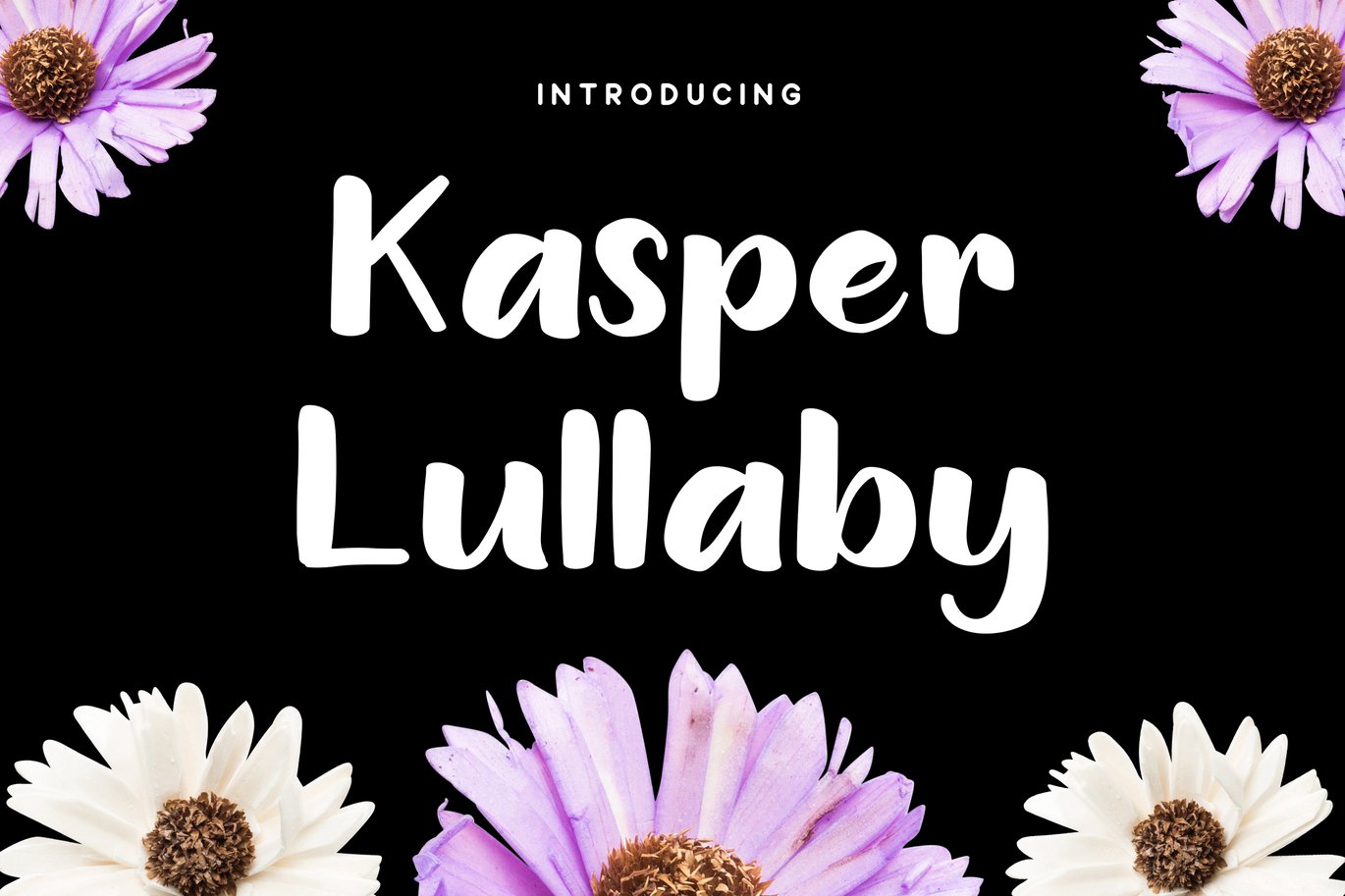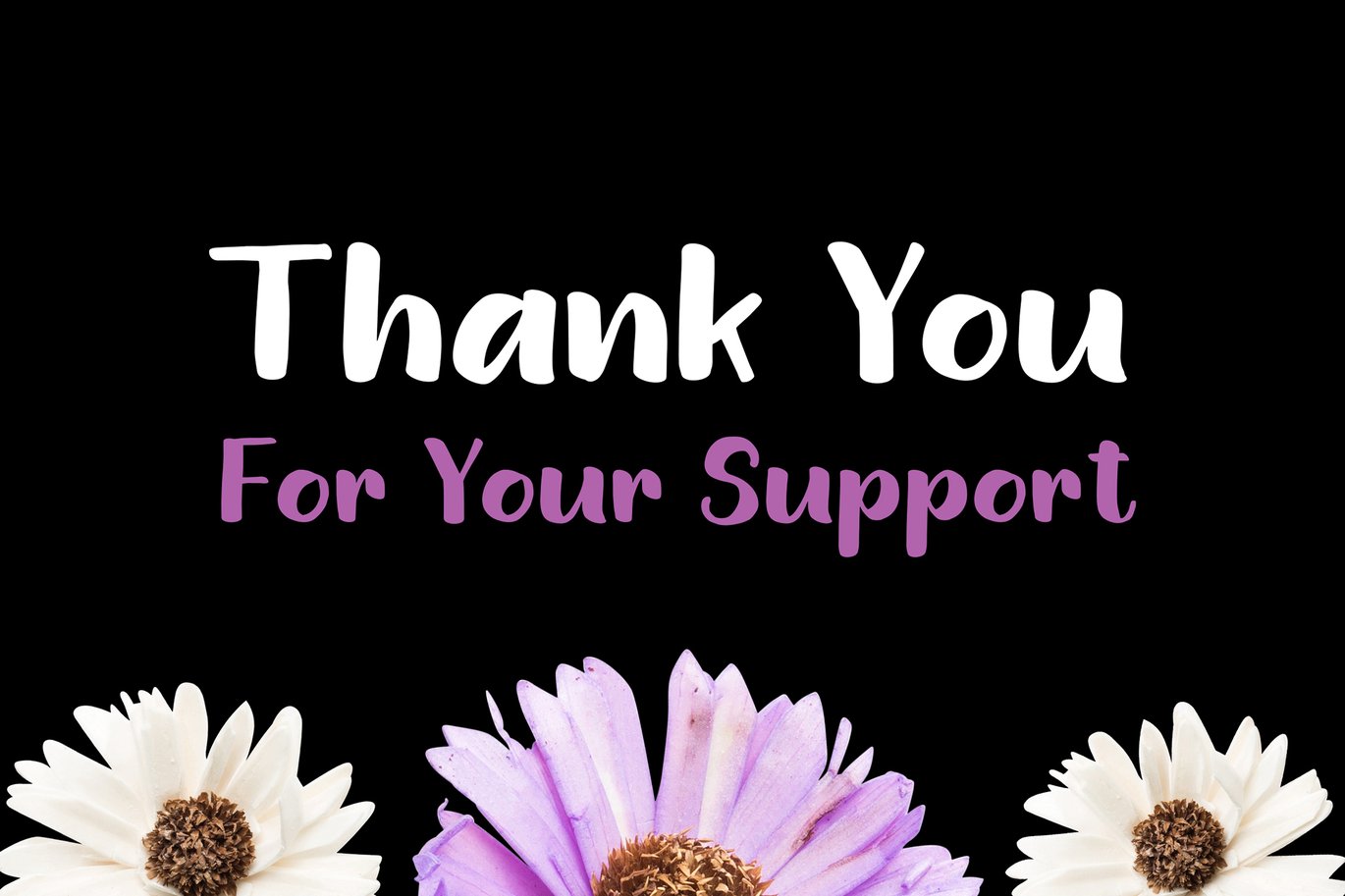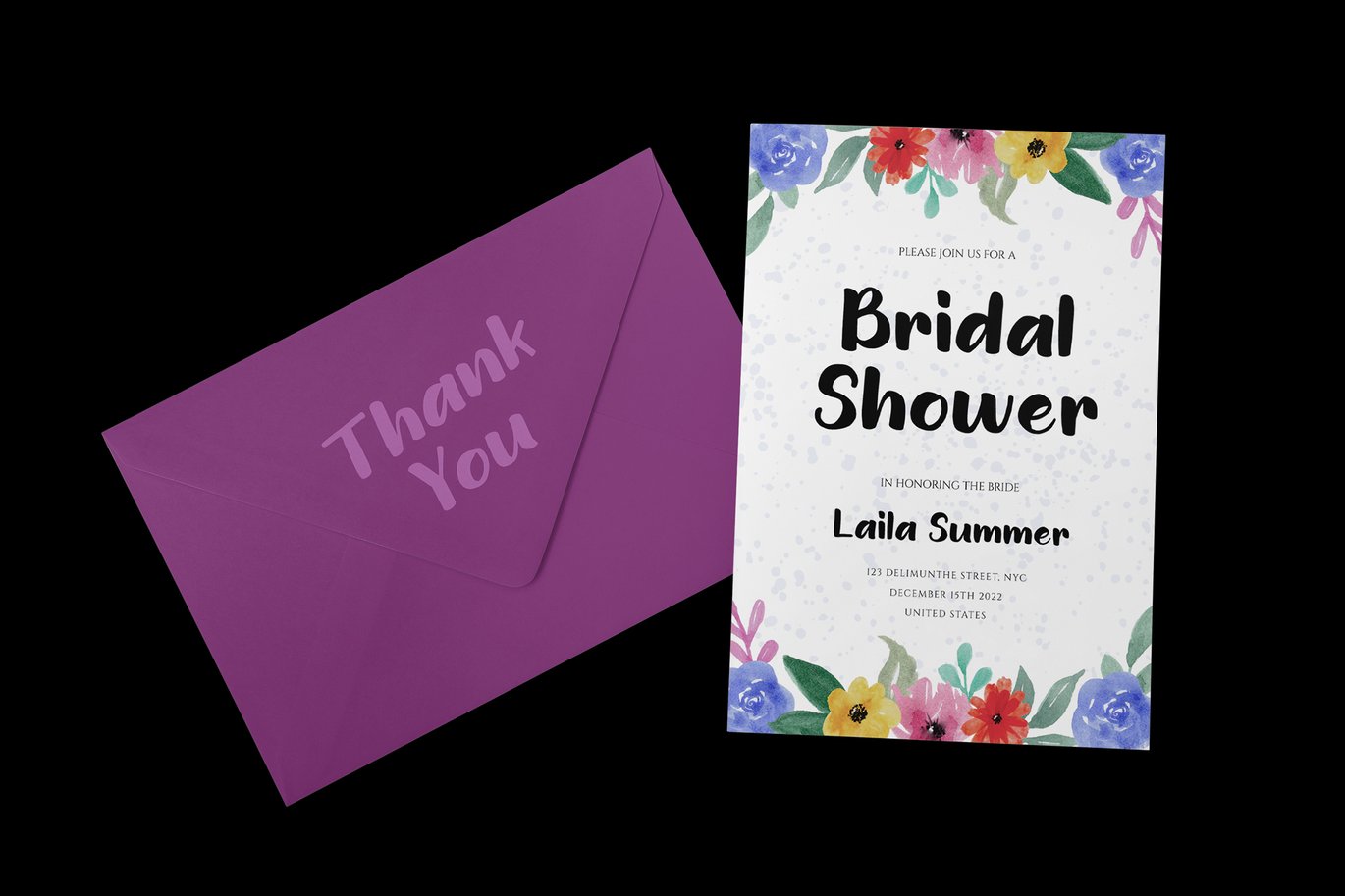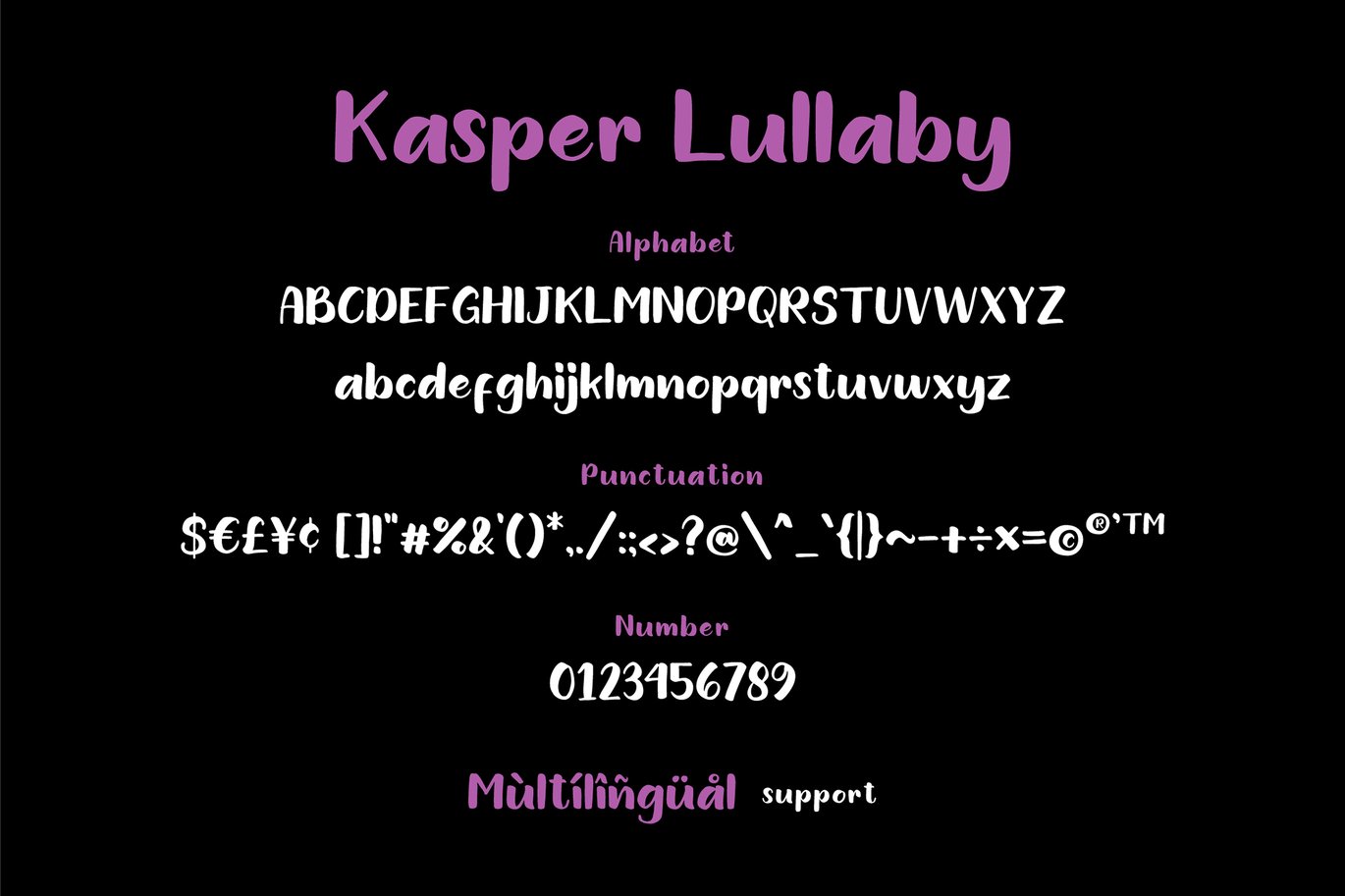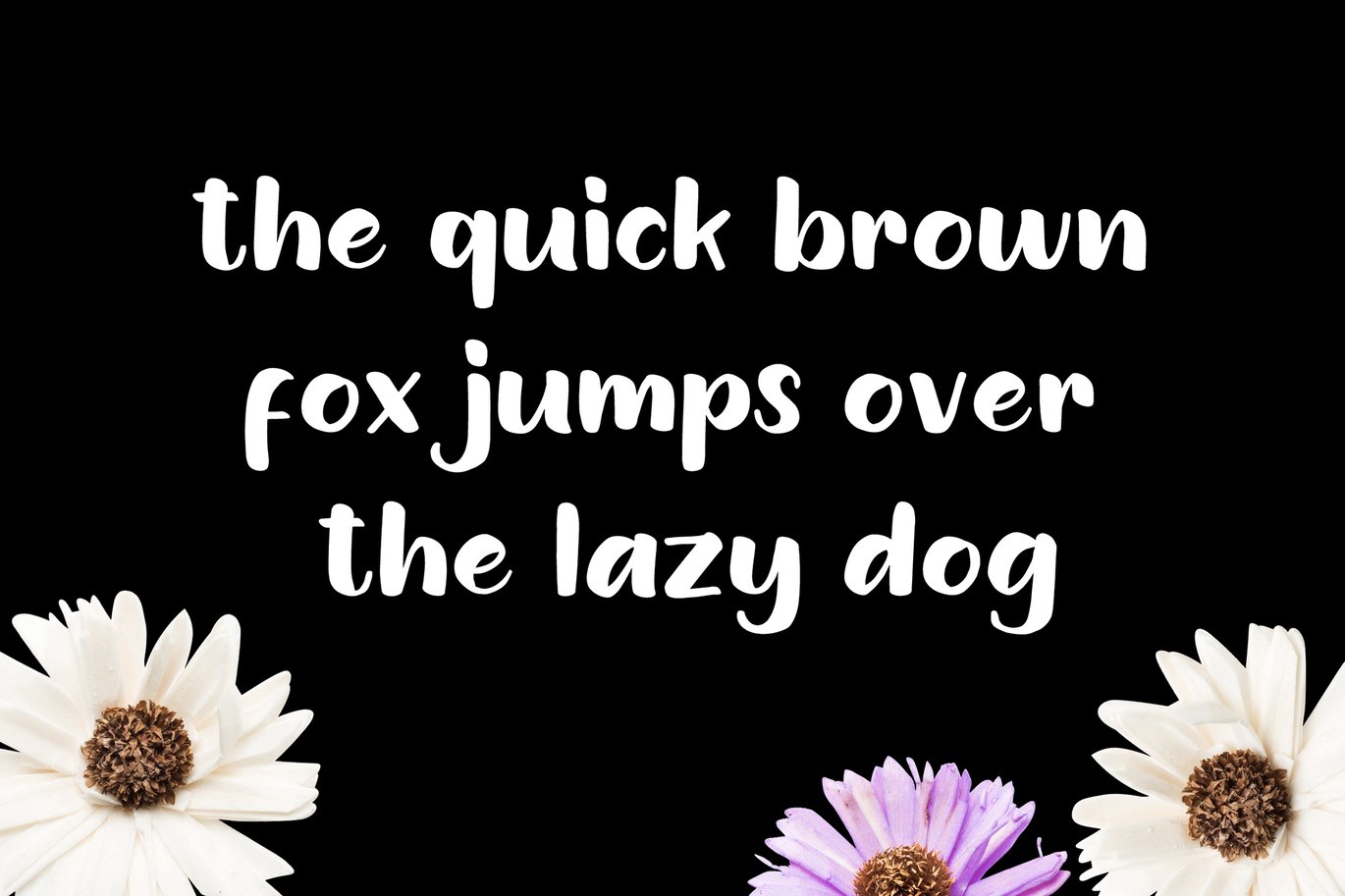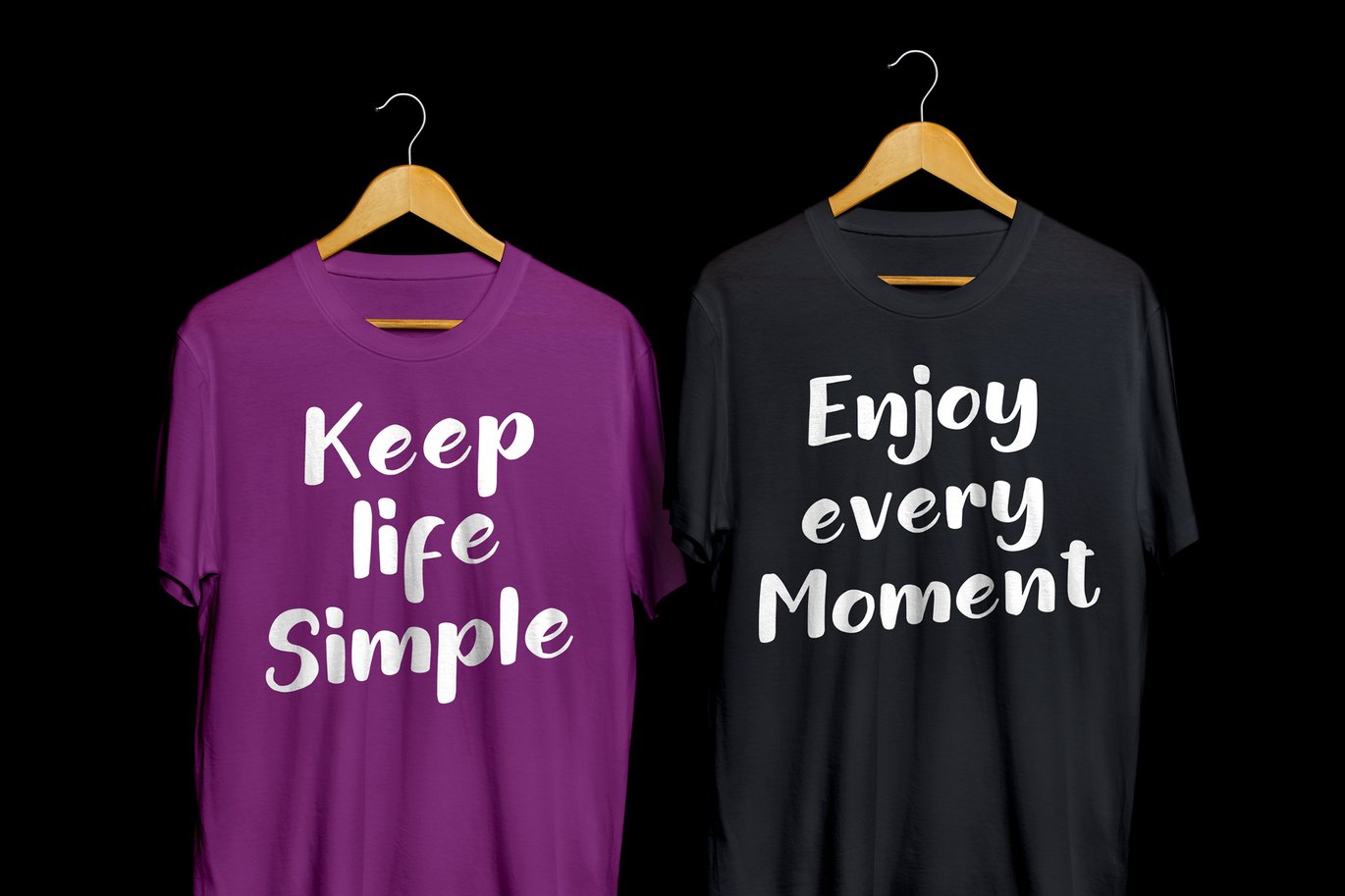
Kasper Lullaby – Cute Font
Kasper Lullaby is a unique handwritten font crafted with care. Get inspired by its cute appearance!
- Numerals & Punctuations
- Multilingual Language